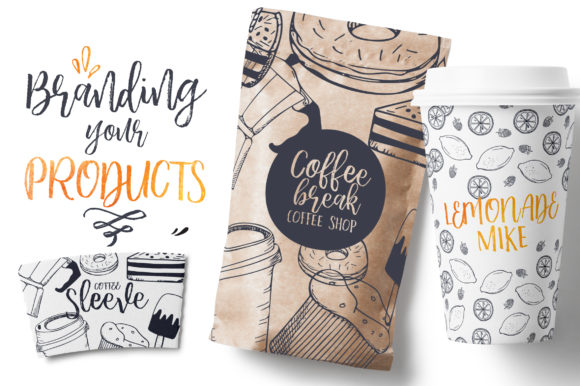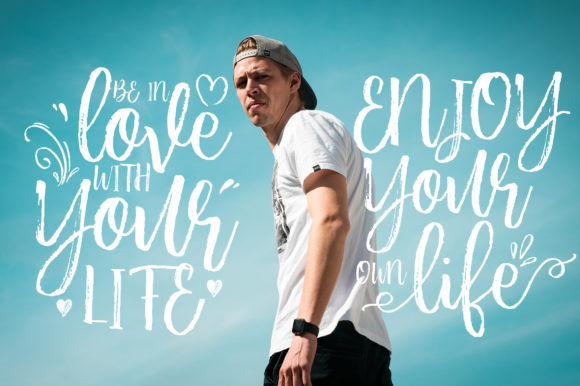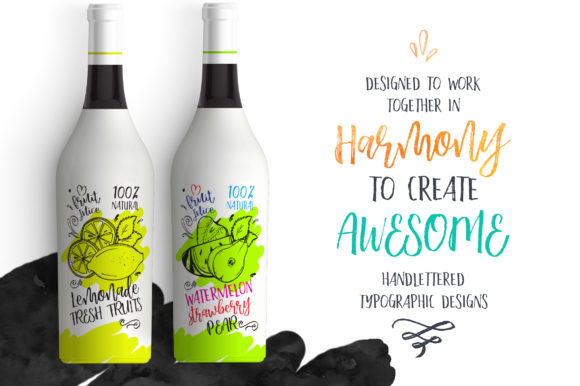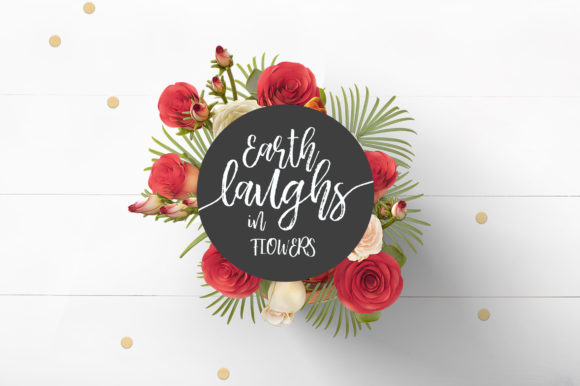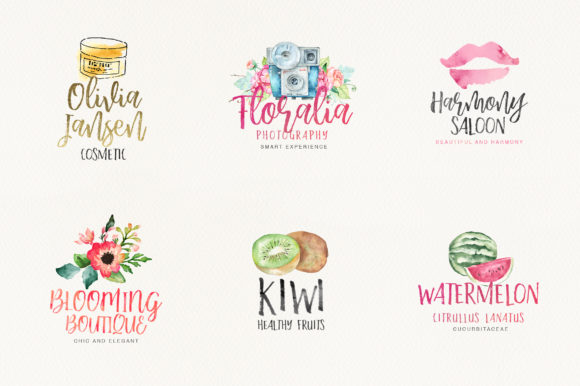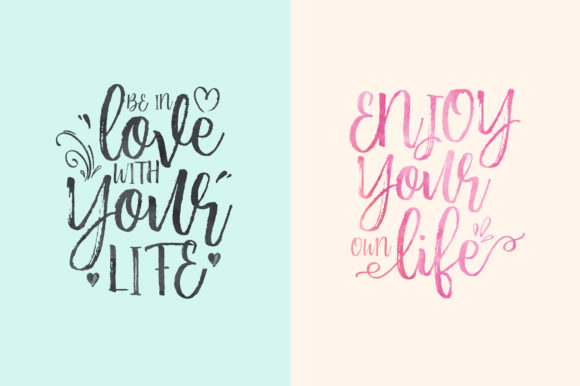
HomeScript FontsBeautiful Struggle Font Script Fonts Beautiful Struggle Font FacebookXPinterestWhatsApp Beautiful Struggle Font Poster 2 Beautiful Struggle Font Poster 3 Beautiful Struggle Font Poster 4 Beautiful Struggle Font Poster 5 Beautiful Struggle Font Poster 6 Beautiful Struggle Font Poster 7 About Beautiful Struggle Font The struggle is real. But at least with this amazing script, it will look good. DOWNLOAD ON CREATIVE FABRICAThis font is sold and delivered by Creative Fabrica. Font Canyon may earn a commission if you buy through this link. People also explored Romantic Butterfly Font Moderation Font Ursula Script Font Carlene Font Ringbolts Font Georgiess Signature Font Bridgatte Font Cordenilo Font Mellizan Font 293 0 TagsBeautiful Struggle Font Previous articleNurul FontNext articlePrettigel Font LEAVE A REPLY Cancel reply Comment: Please enter your comment! Name:* Please enter your name here Email:* You have entered an incorrect email address! Please enter your email address here Website: Save my name, email, and website in this browser for the next time I comment. Personal Use Free New System Personal Use Free Read more about this font Splatter Splash Personal Use Free Read more about this font Bally Girl Personal Use Free Read more about this font Wanita Cantik Personal Use Free Read more about this font BLOG Modern Sans-Serif Fonts That Brands Love in 2025 In 2025, modern sans-serif fonts remain a top choice for brands looking to project clarity, professionalism, and... The 10 Best Handwriting Fonts to Add Personality to Your Designs Transform Your Website: Elevate Your Typography with 7 Best Web Font Generators Where to Buy American Fonts Online in 2024